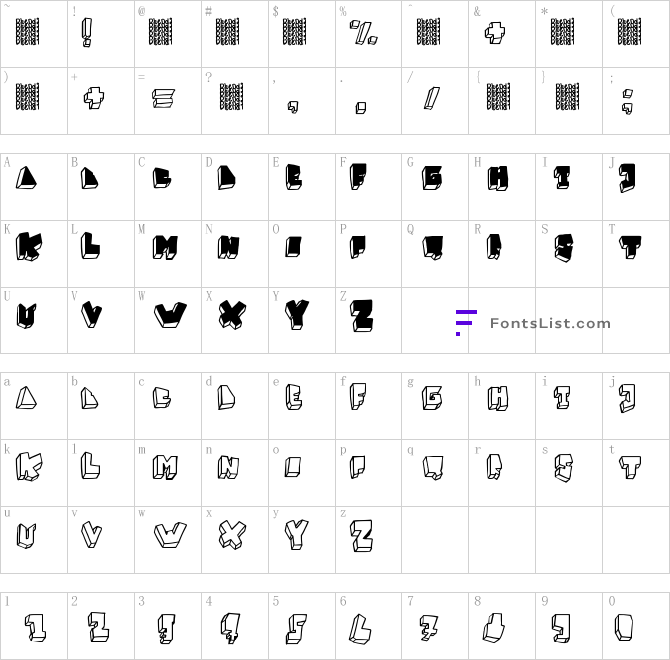
- Font Name:BALOK-balok TAK sempurna
BALOK-balok-TAK-sempurna.ttf is a very beautiful artistic font, BALOK-balok-TAK-sempurna.ttf is widely used in the design and printing of various books and pictures,BALOK-balok-TAK-sempurna.ttf has a strong visual impact,BALOK-balok-TAK-sempurna.ttf is a commonly used font in newspapers, magazines and books, and is used in posters, e-commerce Poster design, store design, logo design, font design and other fields.BALOK-balok-TAK-sempurna.